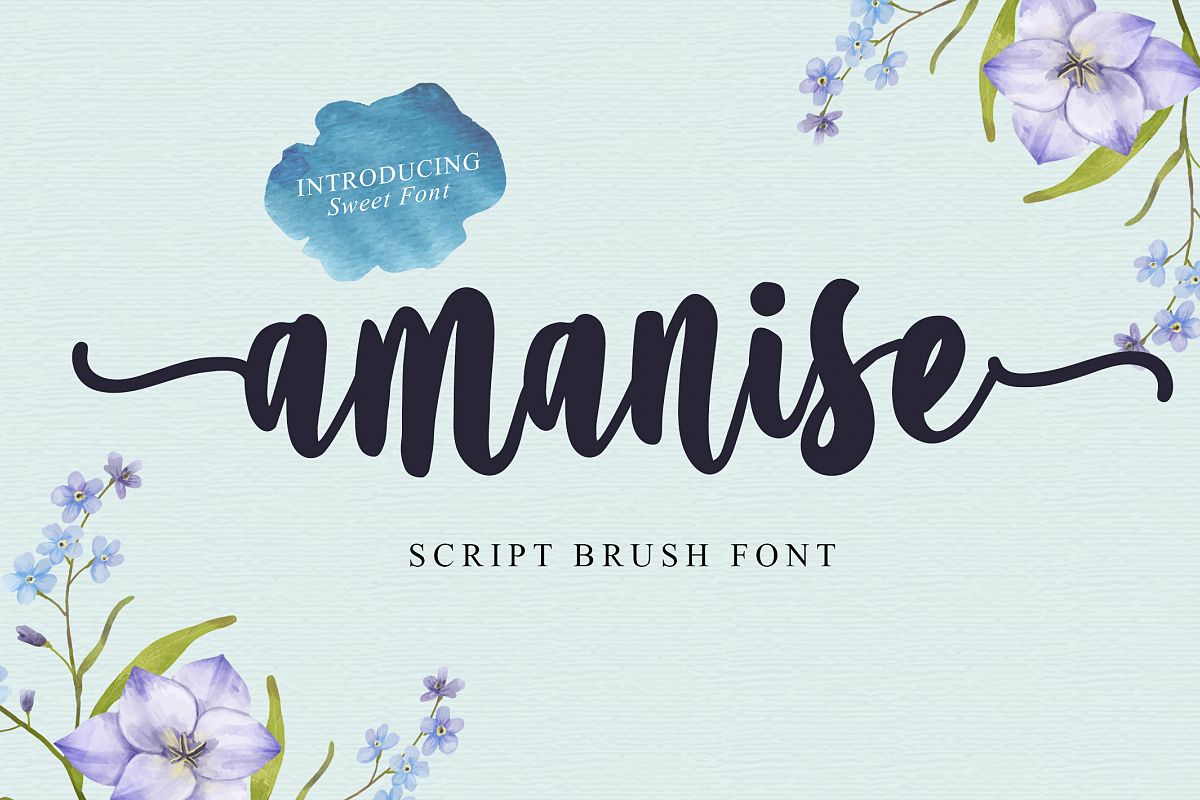
Amanise | Handwritten Script Font
Introducing, our newest Font, Amanise!
fonts suitable for, promotions, cards, posters, clothes, quotes, social media posts, crafts and all kinds of printing designs!
Amanise feature:
- Basic Basic Character Sets, including UPPERCASE, lowercase letters, numbers and symbols.
- Multilingual support
- With Alternatives at the beginning of letters and end of letters